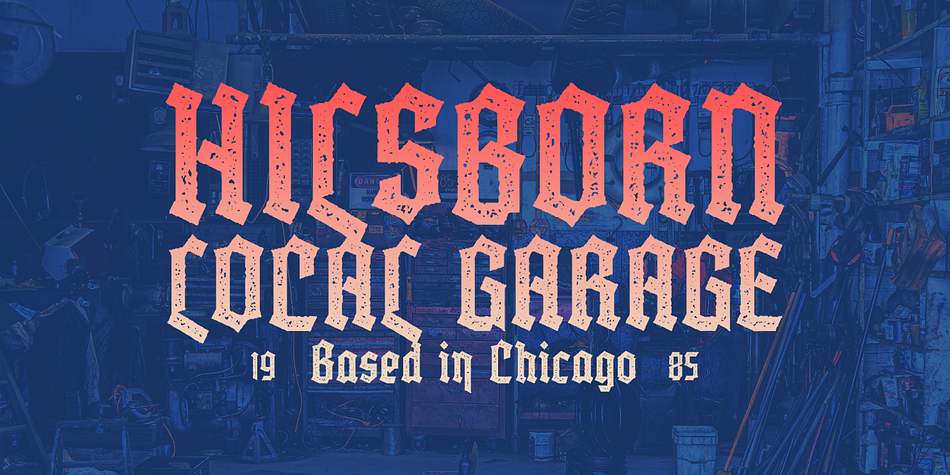
Miltorn
Designed by Hendry Juanda, Miltorn is a blackletter font family. This typeface has two styles and was published by Letterhend Studio.
Introducing, Mictorn - A display blackletter typeface in 2 style regular & stamp. It comes with ornament bonus. This type of font perfectly made to be applied especially in logo, and the other various formal forms such as Logo, Clothing, Fashion, Headline, or any type of advertising purpose.
- Uppercase & lowercase
- Numbers and punctuation
- Alternates & Ligatures
- Multilingual